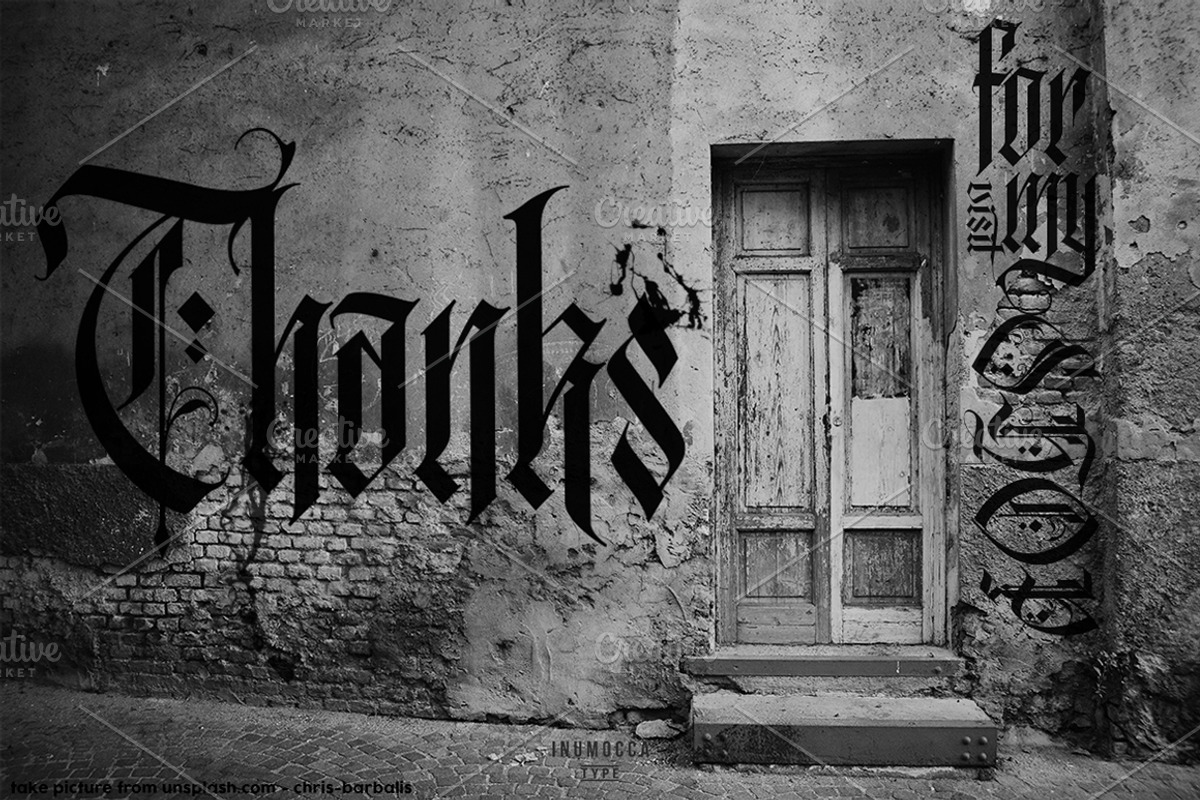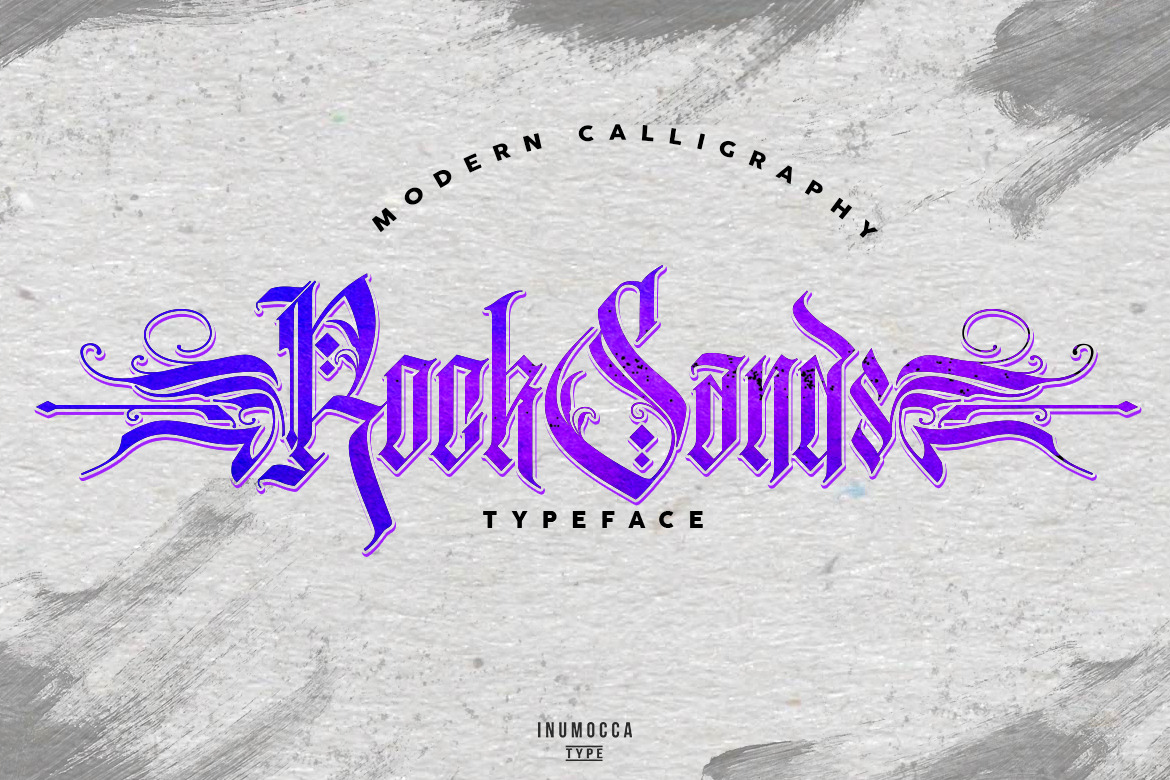
RockSands Typeface
RockSands Typeface and RockSands LMNTS. it's a modern Calligraphy, Classy, Vintage, Tattoo Look, great to playing with this typeface for your logos, signature, and other stuff.
RockSands Typeface and RockSands LMNTS :
- Unique glyphs
- Multilingual characters
- UPPERCASE
- LowerCase
- Numeric,
- Symbol,
- Punctuation characters